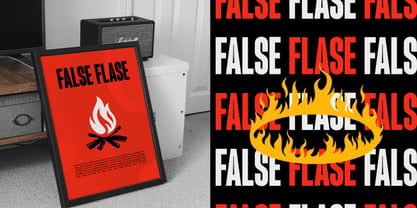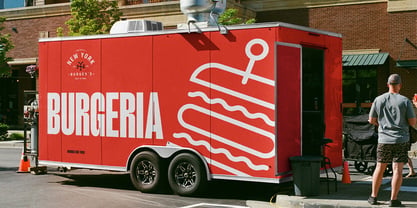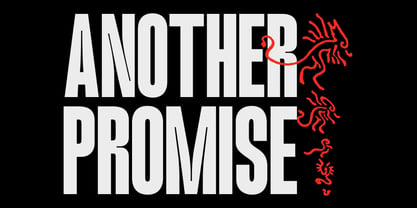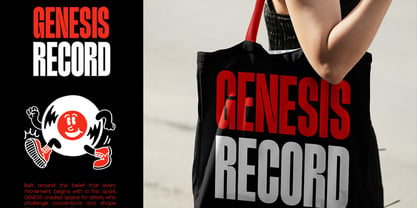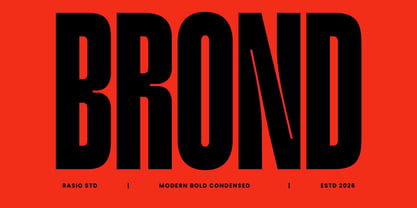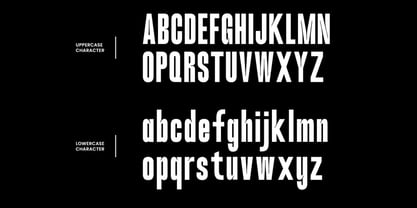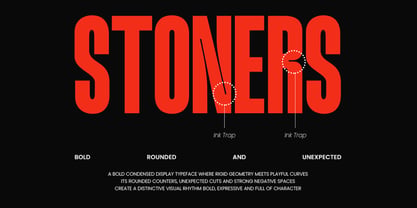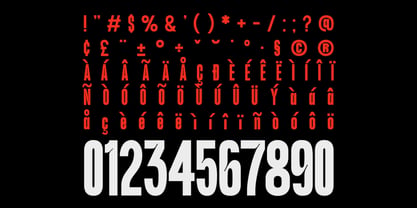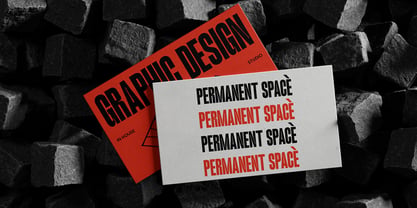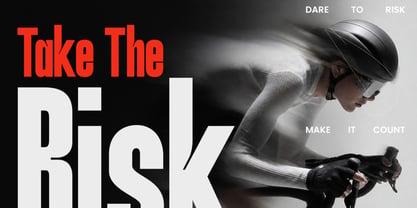
Brond
by Rasio Studio
The Brond Font Family was designed by Fajar Indra and published by Rasio Studio. Brond contains 1 styles. More about this family
Brond is a bold condensed sans serif typeface built around extremely tall, narrow letterforms and a compact horizontal structure. Its characters use heavy, uniform strokes with tightly controlled proportions, creating a strong vertical silhouette that allows large words to occupy less horizontal space while maintaining a powerful visual presence. The uppercase alphabet is especially striking, with narrow counters, rounded outer corners, and compressed forms, while the lowercase set continues the same condensed construction with tall ascenders and compact bowls.
Relevance and Use Case is perfect for poster titles, sports graphics, racing artwork, event campaigns, music covers, fashion campaigns, magazine headlines, advertising layouts, packaging titles, promotional banners, social media artwork, and bold brand statements. The uppercase characters work especially well when several words are stacked or arranged in tight typographic compositions, while the lowercase alphabet can provide variation for secondary headings and shorter phrases.
Designers: Fajar Indra
Foundry: Rasio Studio